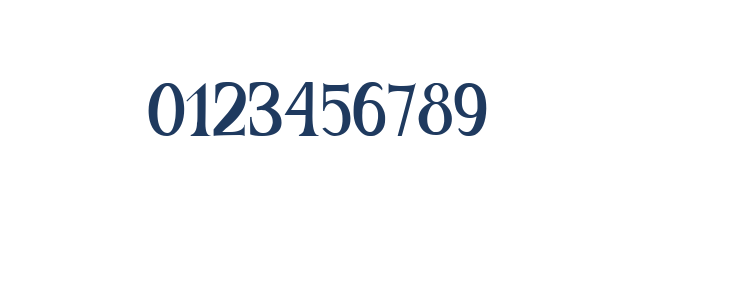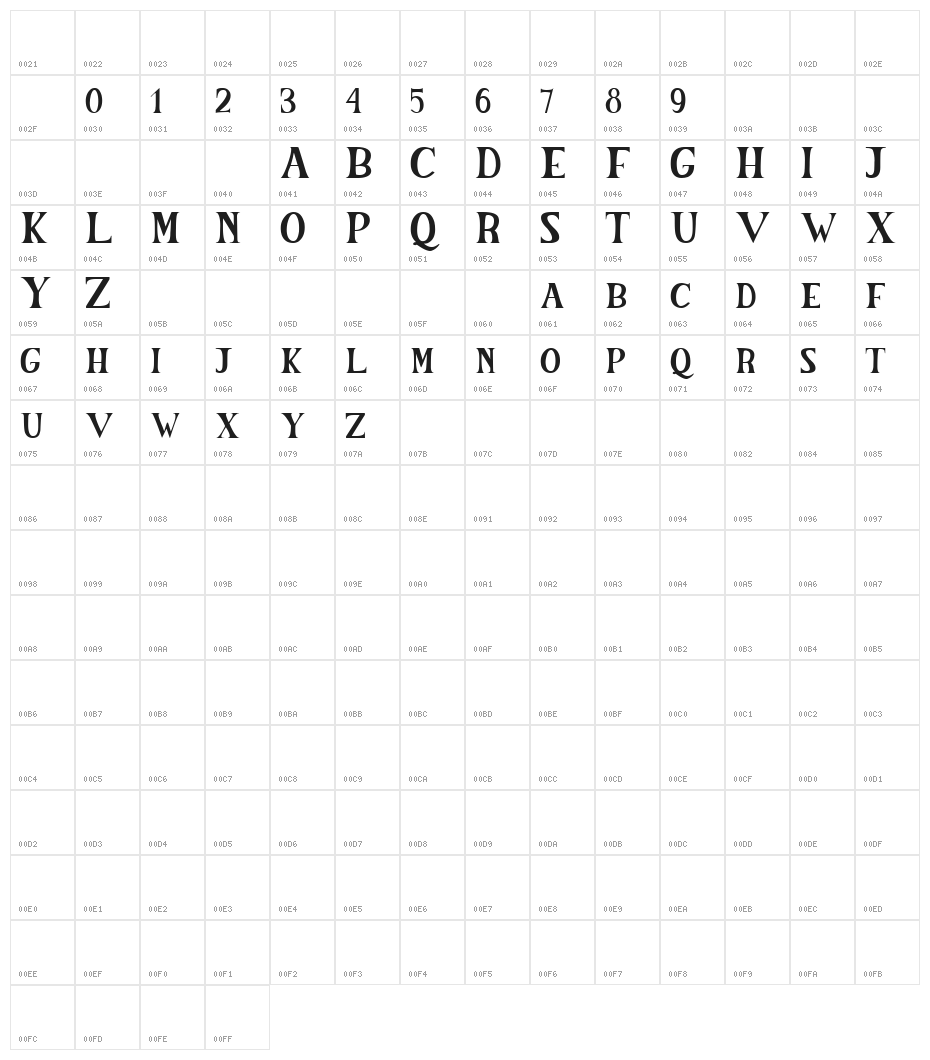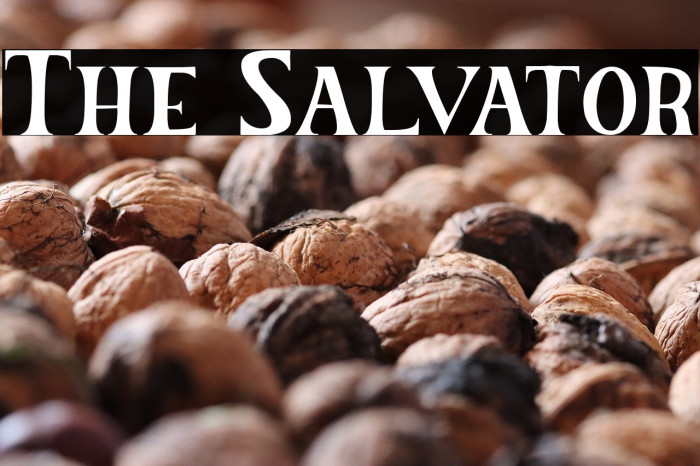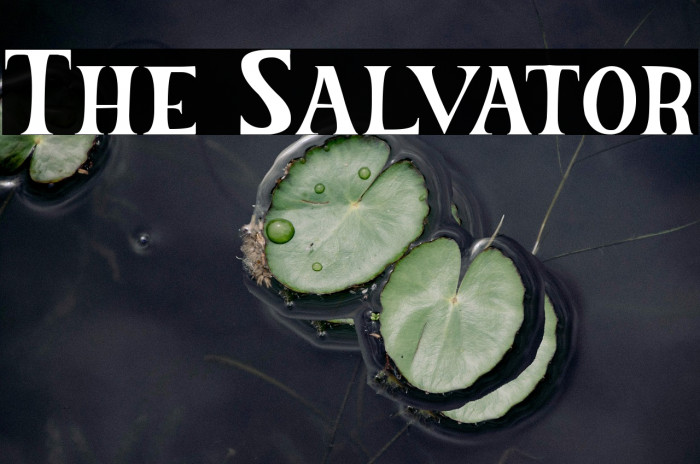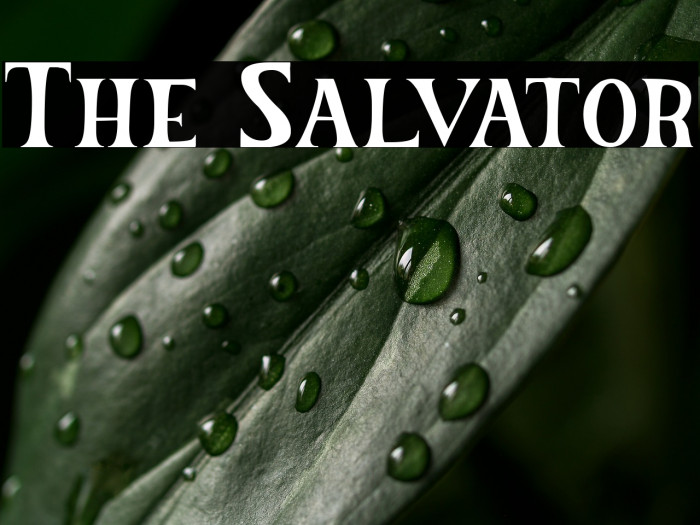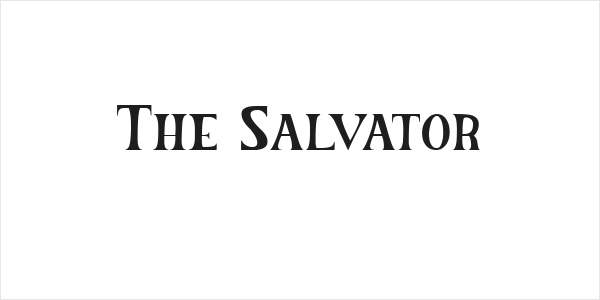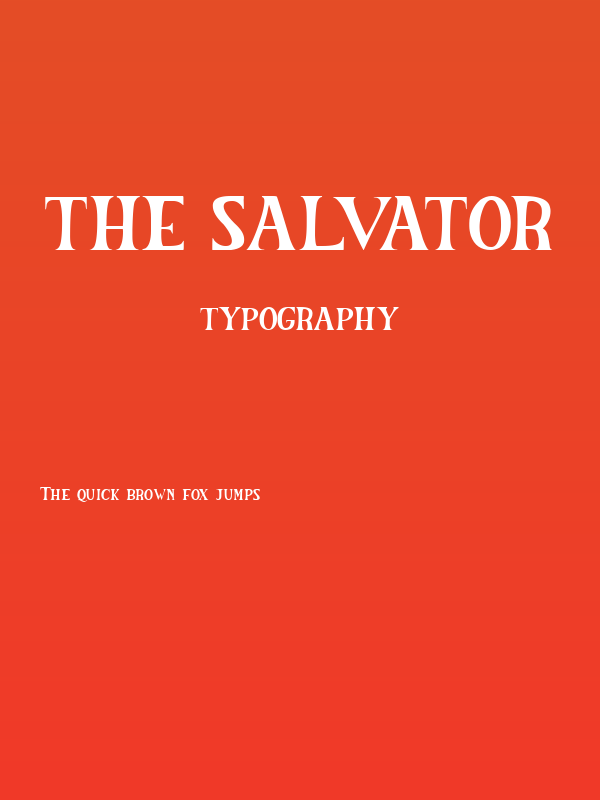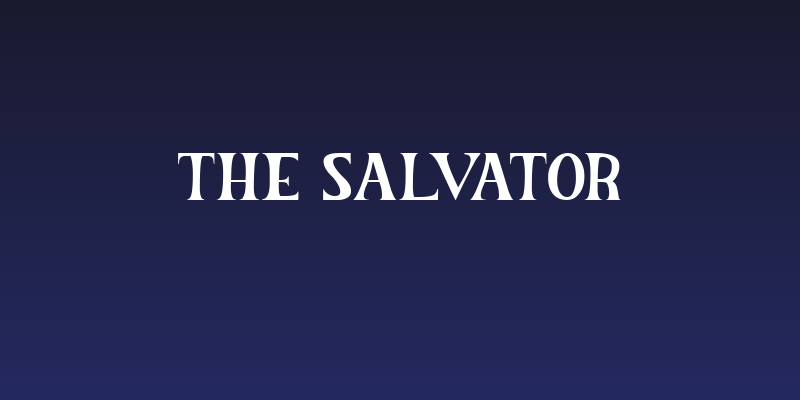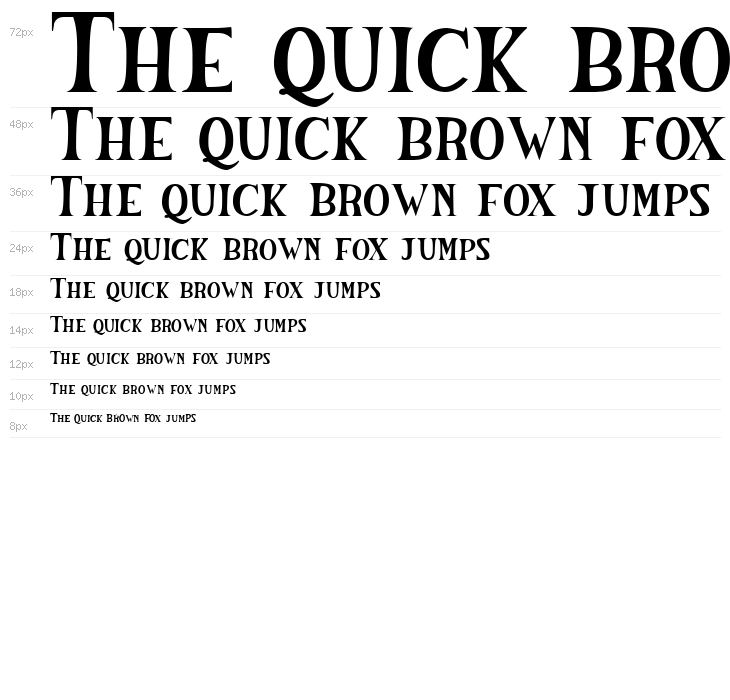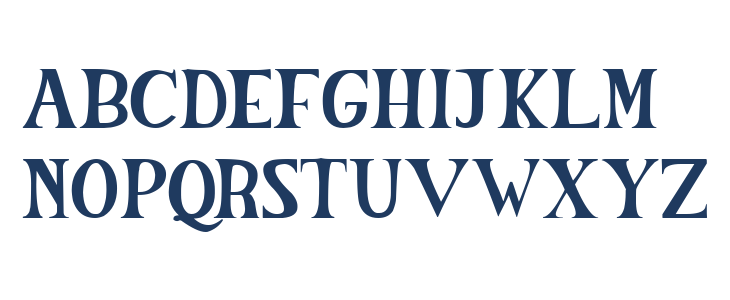
The Salvator Font
The Salvator Description
This font features a bold and dramatic style with high contrast between thick and thin strokes. The serifs are pronounced and slightly curved, giving it a classic yet dynamic appearance. The characters are well-defined, with a slight flair at the ends of the strokes, adding a touch of elegance. The numerals are consistent with the letterforms, maintaining the same boldness and style. Overall, it exudes a sense of sophistication and authority, making it suitable for impactful designs.